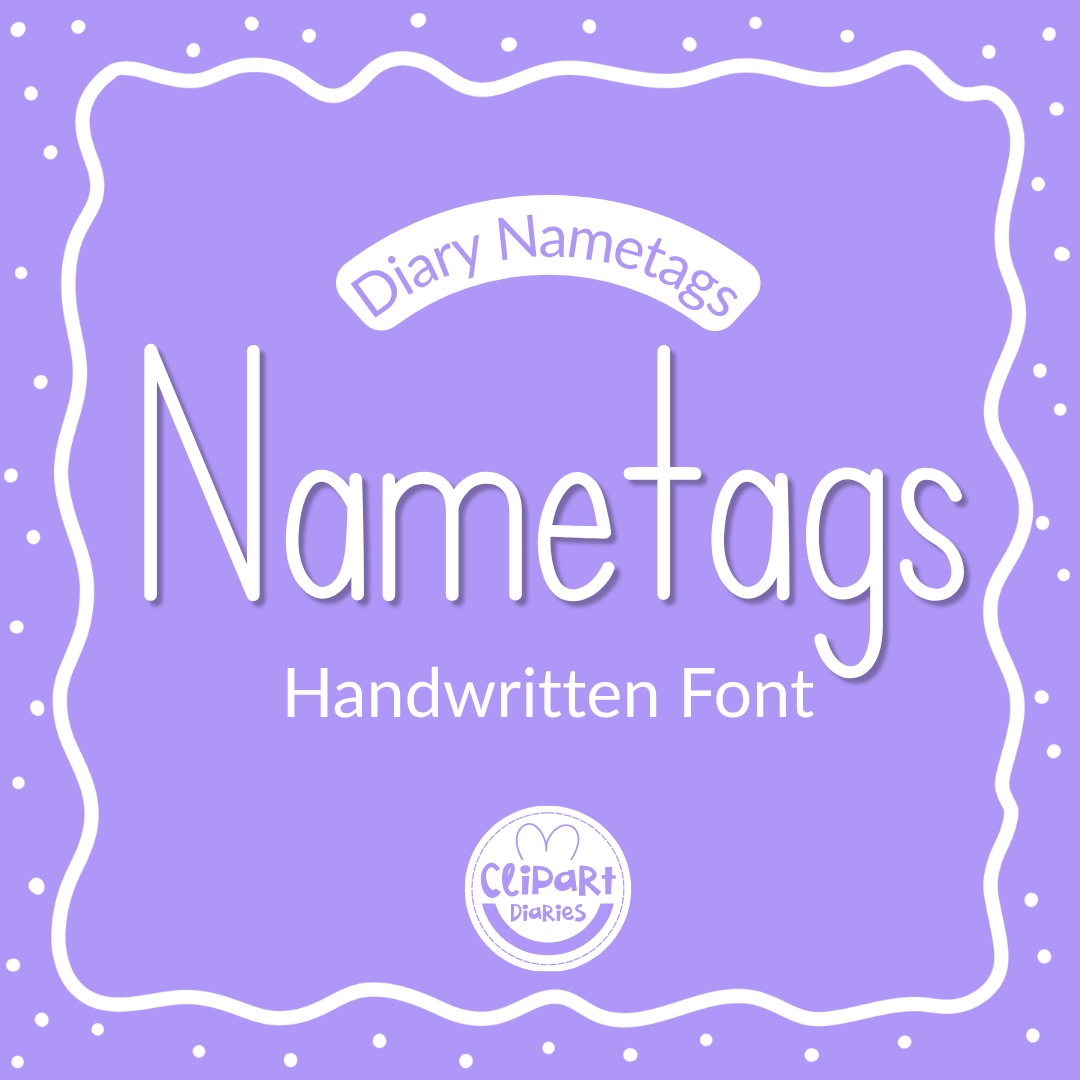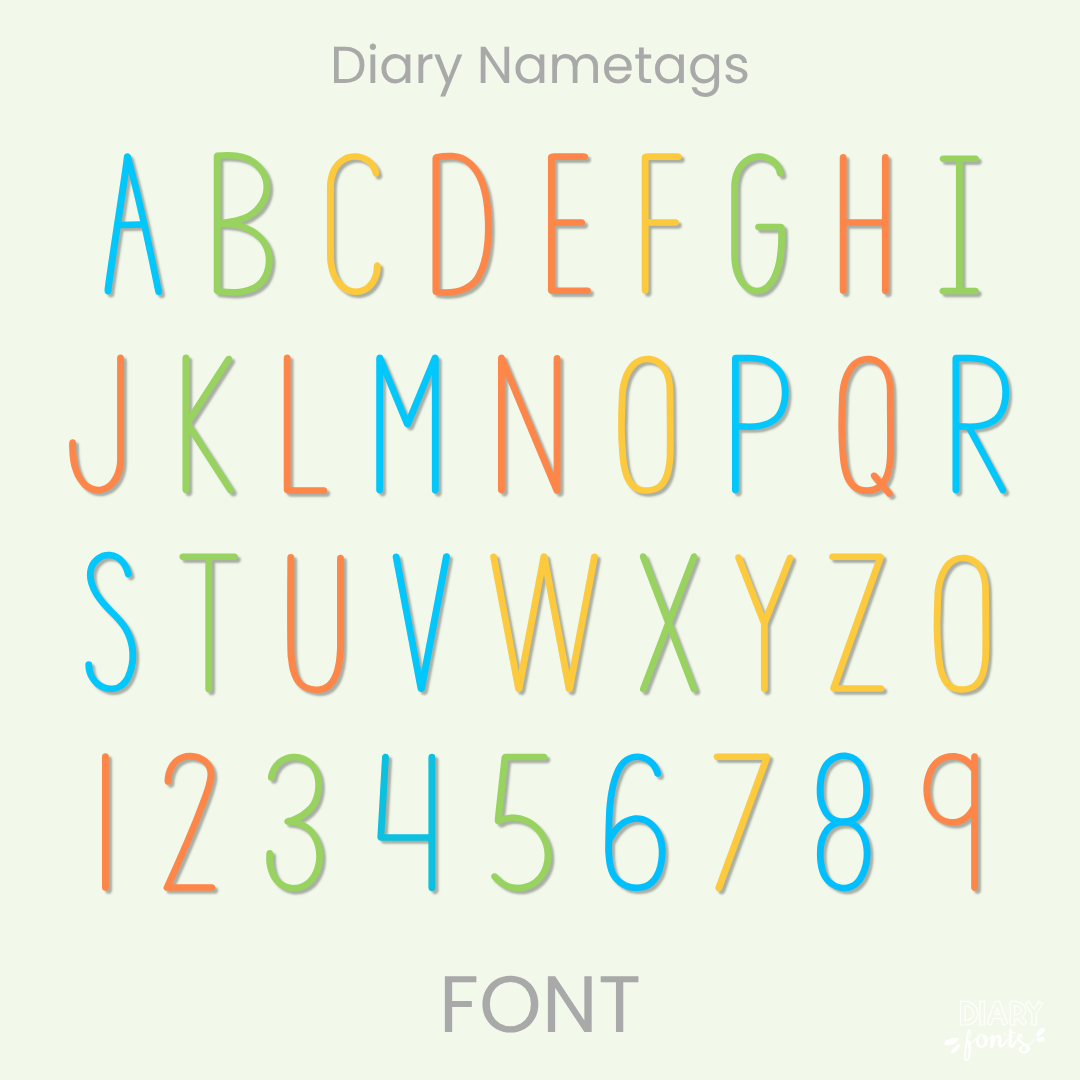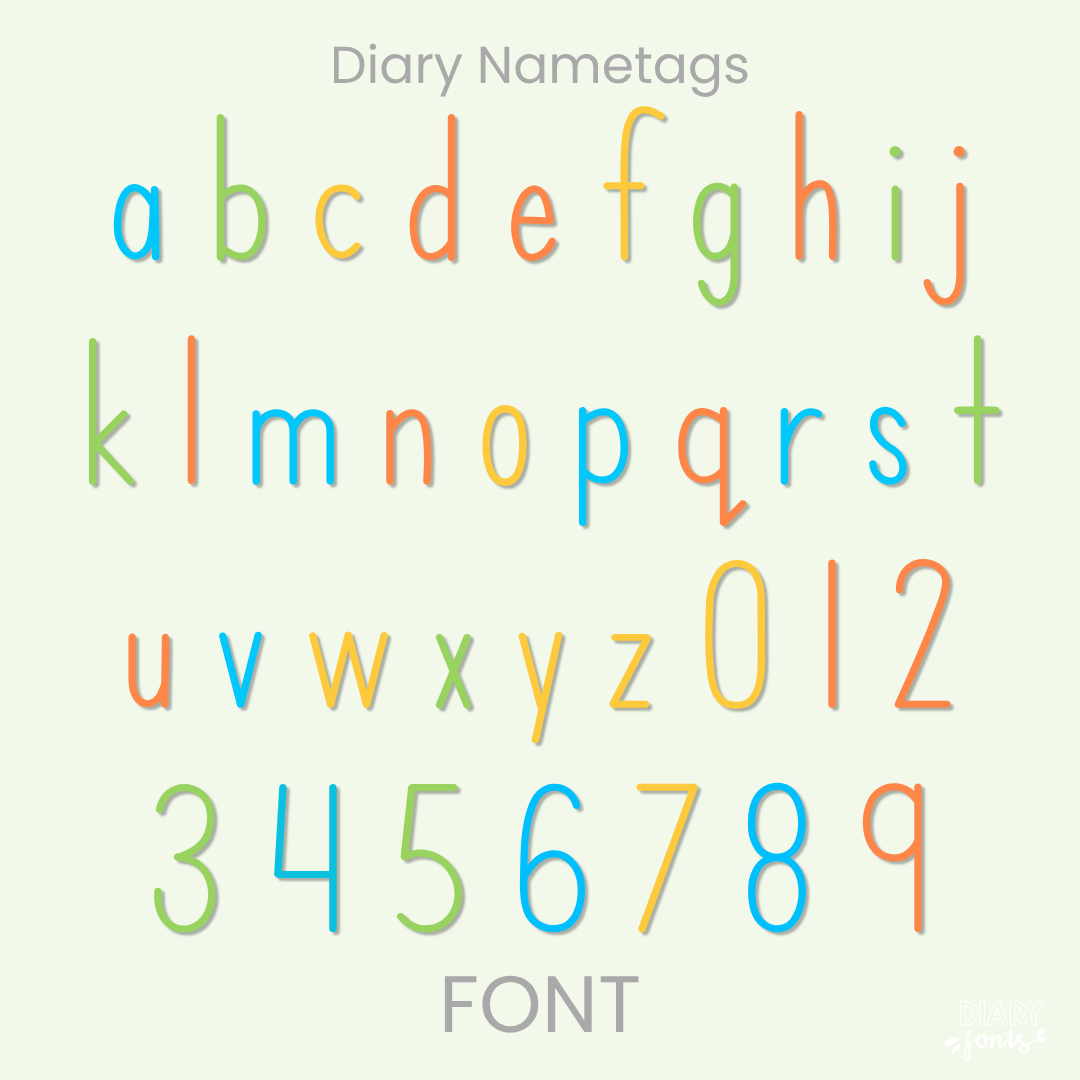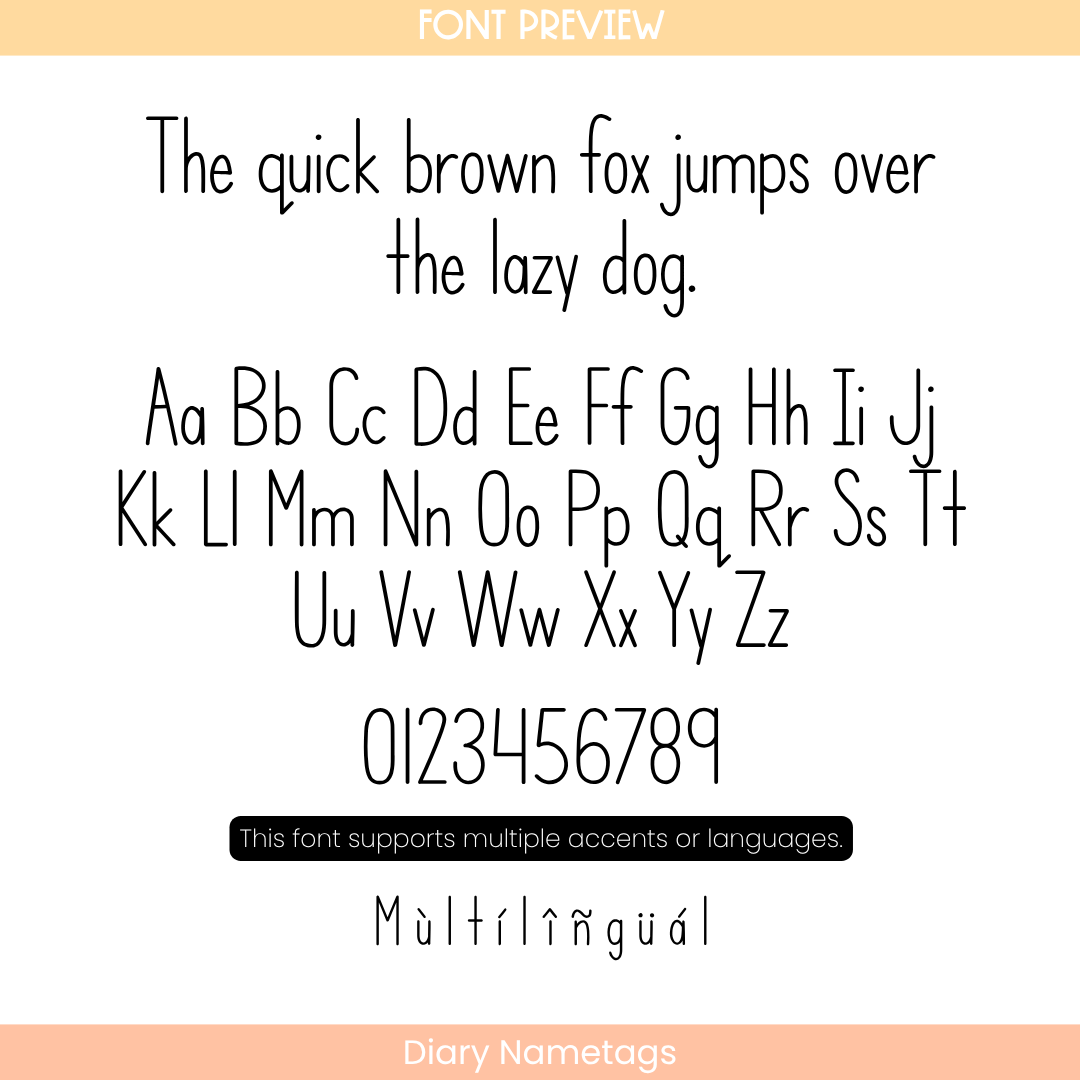
If you need a reliable, highly legible typeface for organizational projects, Diary Nametags is an excellent choice. Unlike bouncy or irregular script styles, this font features straight, evenly spaced, and upright hand-drawn characters that mimic neat, careful print handwriting. Because every letter sits perfectly on the baseline with uniform heights, it eliminates visual clutter and ensures maximum readability for early readers and elementary students.
This makes it the ultimate choice for desk nameplates, classroom storage bin labels, printable nametags, handwriting practice sheets, and structured daily worksheets. The font includes a complete set of clean uppercase and lowercase letters, crisp numbers, and multiple accents for full multilingual support. It is fully compatible with Canva, MS Office, and Adobe Apps, and runs flawlessly on iPad applications like GoodNotes and Procreate. Whether you are setting up your personal classroom organization system or designing professional, commercial teacher resources, this typeface provides a polished, neat, and highly approachable aesthetic.